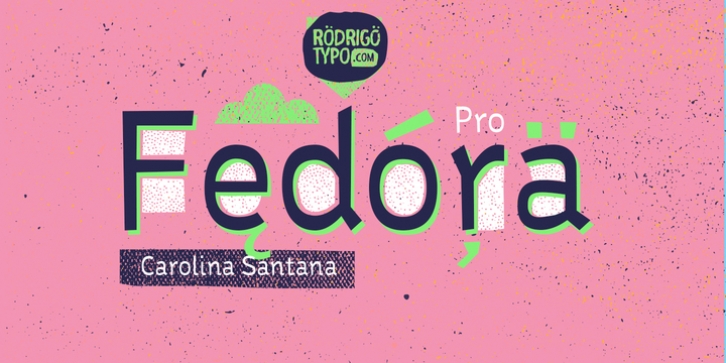
Publisher: RodrigoTypo
Sans serif typography, playing with alternatives as a layer and another set of ornaments to make your titles something very nice and very entertaining. Styles can also be combined. Created by Carolina Santana.